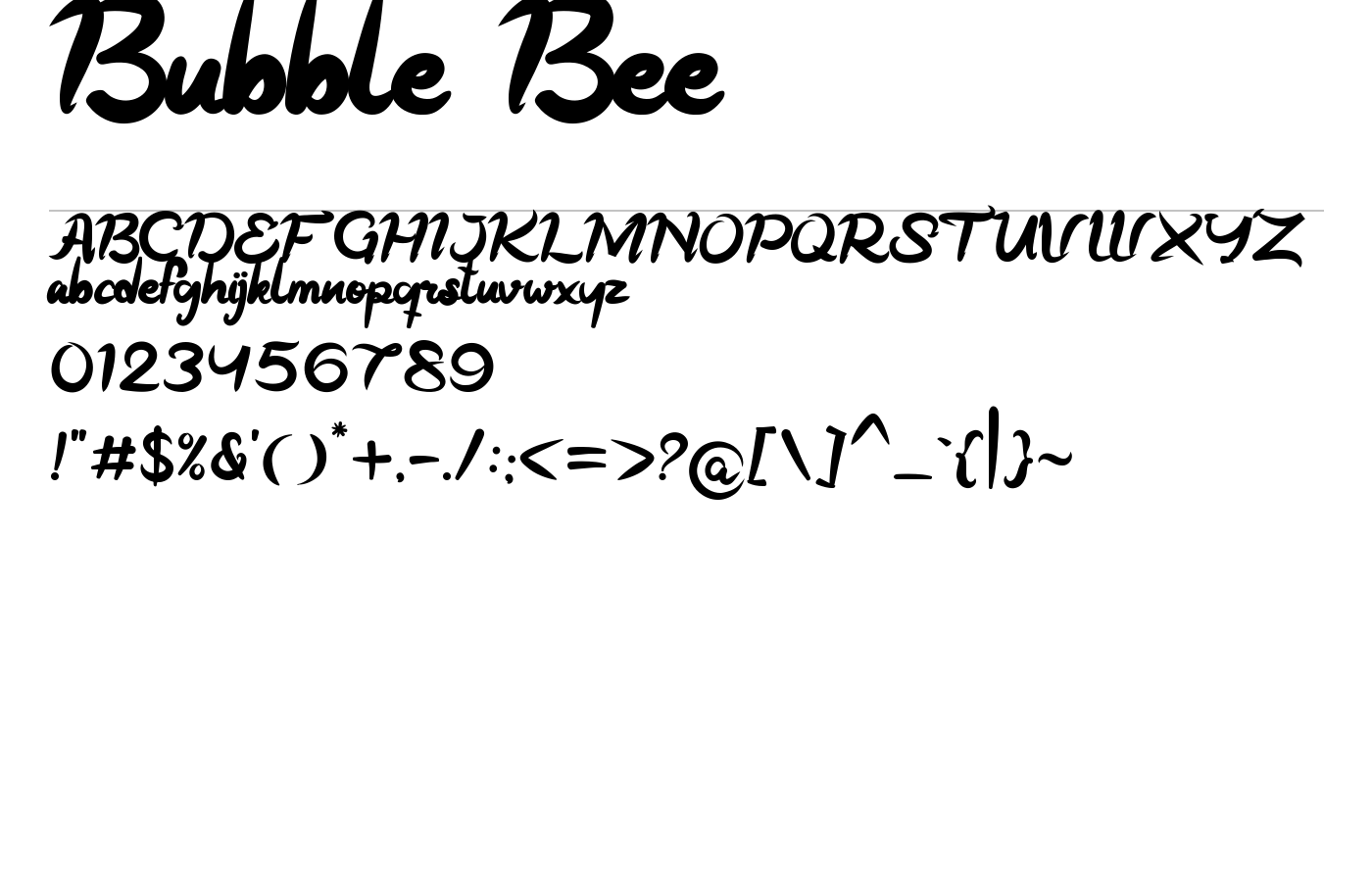
Bubble Bee is a bold, playful script font with smooth, rounded strokes and a lively, hand-drawn feel. Its casual yet confident style makes it perfect for fun branding, children’s products, and eye-catching headlines where a charming and approachable vibe is desired. With its energetic curves and slightly condensed letterforms, it works wonderfully in designs that need a friendly and dynamic touch.
Bubble Bee Font